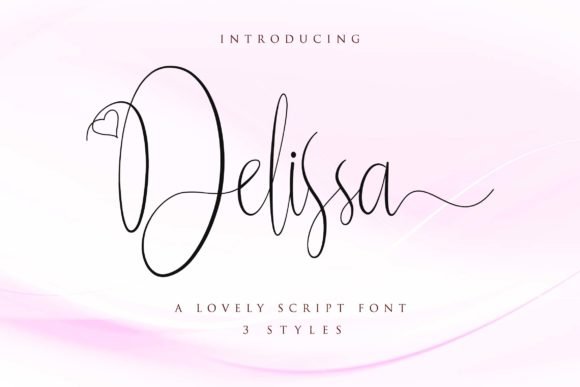
The Art of Elegant Typography: Unleashing the Power of Delissa Script Font
Have you ever found yourself scribbling down a list of words in a beautiful, flowing script, only to wish you could replicate the exact same look on your next design project? That’s the moment when the perfect font can make all the difference. For designers seeking to add a touch of luxury and elegance to their work, the Delissa Script Font is a game-changer.
This beautiful font comes in three styles that can be mixed and matched to create a wide range of unique designs. Whether you’re working on upscale packaging, wedding stationery, or a website that needs a handwritten touch, the Delissa Script Font is the perfect tool for the job. With its wide range of swashes and alternates, you can give your logo or name a custom, hand-calligraphy look that’s sure to impress.
Delissa Script Font Key Features
- Font Family: Delissa Script
- Unique Characteristics: Hand-drawn script style with elegant and cursive design, ideal for invitations, wedding stationery, and other creative projects.
Delissa Script Font Review
I recently had the chance to work with the Delissa Script Font, and I must say it’s a beautiful addition to any design project. Here are some of its standout features: ✨
- Cursive handwriting style that evokes a sense of elegance and sophistication
- Extensive character set that includes a wide range of punctuation marks and special characters
- Highly legible, making it perfect for body text and headings
However, as with any font, there are some limitations to consider: ⚠️
- May not be the best choice for small text sizes, as it can become difficult to read
- May require additional design work to achieve the perfect balance of contrast and legibility
Overall, I’m quite impressed with the Delissa Script Font. Its unique style and extensive character set make it a great choice for designers looking to add a touch of elegance to their projects. With a little care and attention to detail, it can be a truly beautiful addition to any design.
Tips for Getting the Most Out of Delissa Script Font
Delissa Script Font is perfect for creating elegant and sophisticated designs. Here are some tips for getting the most out of it:
1. Use it for headings and titles to add a touch of elegance.
2. Pair it with a bold font for a striking contrast.
3. Experiment with different font sizes and colors to create a unique look.
Delissa Script Font is ideal for:
2. Branding and logos.
3. Menu design and restaurant signage.
Alternatives to Delissa Script Font
Carolyna Pro is a elegant, high-end script font suitable for luxury branding, weddings, and high-end marketing materials. It’s ideal for creating a sophisticated and refined atmosphere. Compared to Delissa Script Font, Carolyna Pro has a more luxurious feel and is more suitable for high-end branding.
Great Vibes is a modern script font with a relaxed and casual feel. It’s perfect for creating a friendly and approachable atmosphere, making it ideal for food and beverage branding, events, and social media. Compared to Delissa Script Font, Great Vibes is more laid-back and has a more modern feel.
Alex Brush is a handwritten script font with a warm and intimate feel. It’s suitable for creating a personal and emotional connection with the audience, making it ideal for storytelling, non-profit branding, and educational materials. Compared to Delissa Script Font, Alex Brush has a more personal and emotive feel.
Dancing Script is a elegant and sophisticated script font with a touch of playfulness. It’s perfect for creating a lively and energetic atmosphere, making it ideal for entertainment, fashion, and lifestyle branding. Compared to Delissa Script Font, Dancing Script has a more playful and dynamic feel.
Delissa Script Font Projects
Project 1: Elegant Wedding Invitations
Create a sophisticated and romantic wedding invitation using the Delissa Script Font. This elegant font will add a touch of whimsy and sophistication to your invitation.